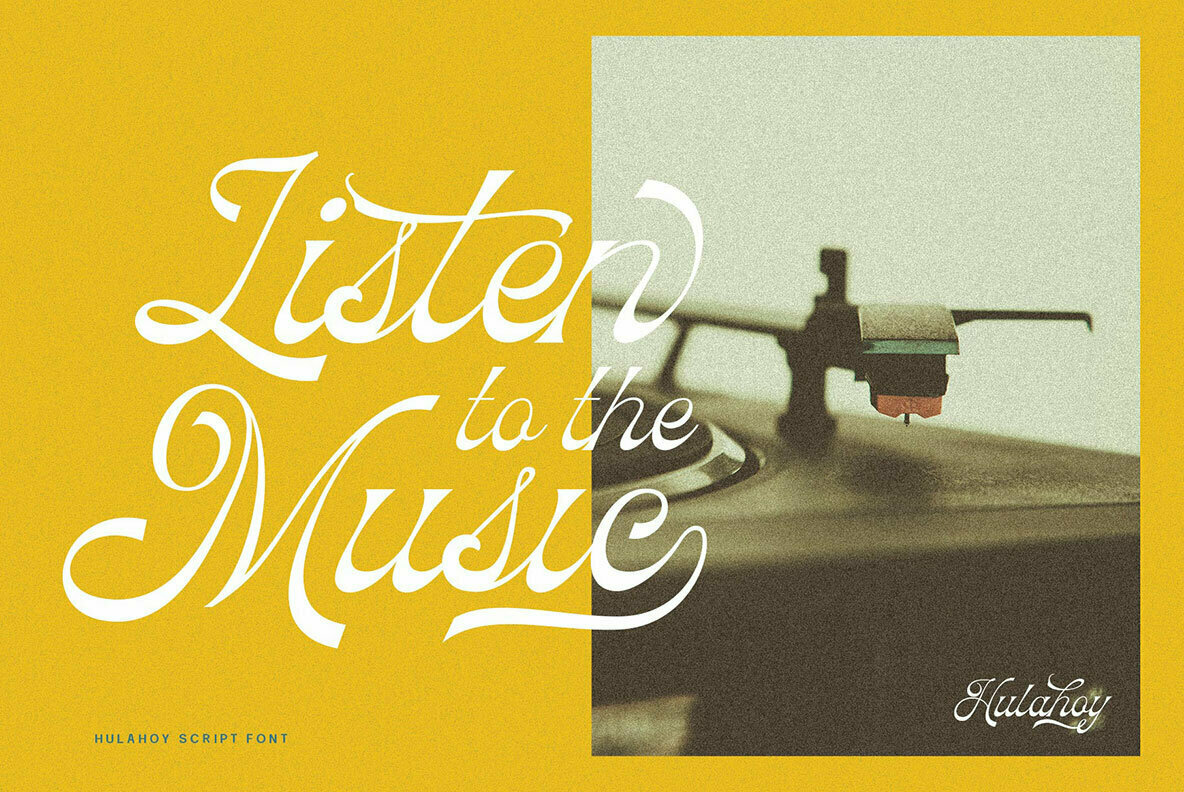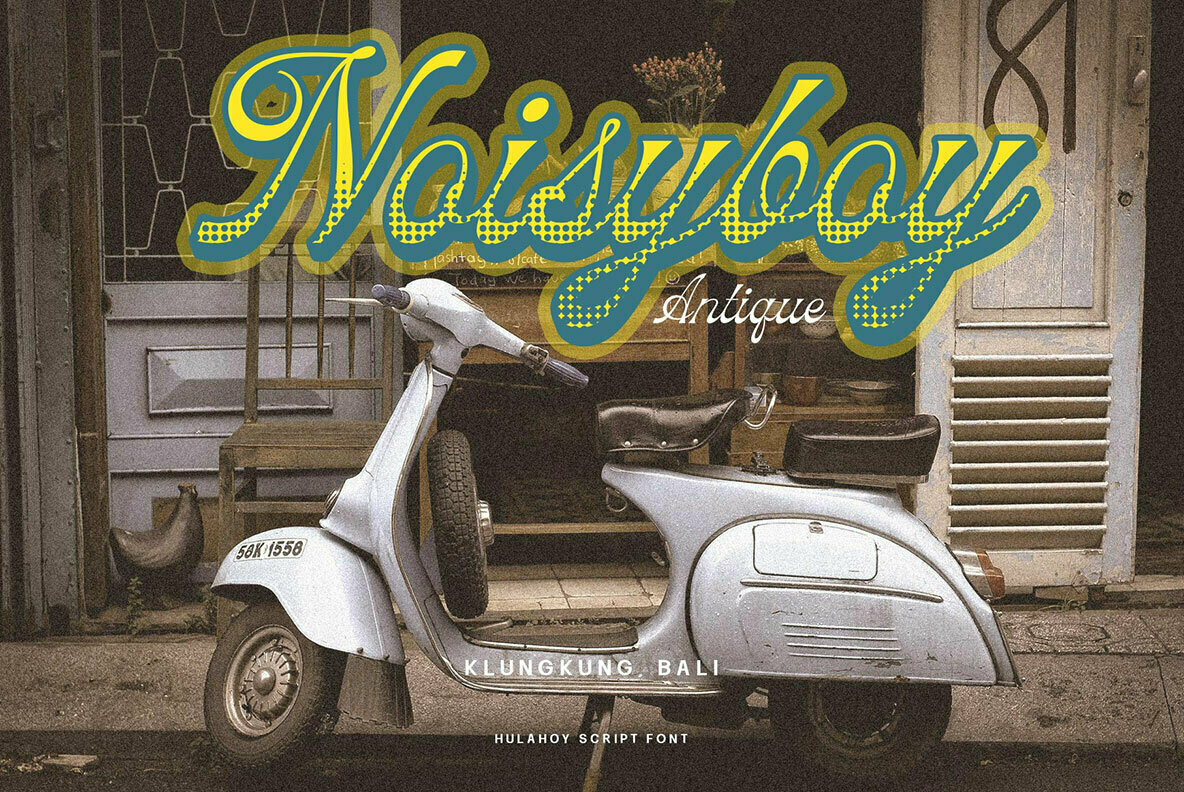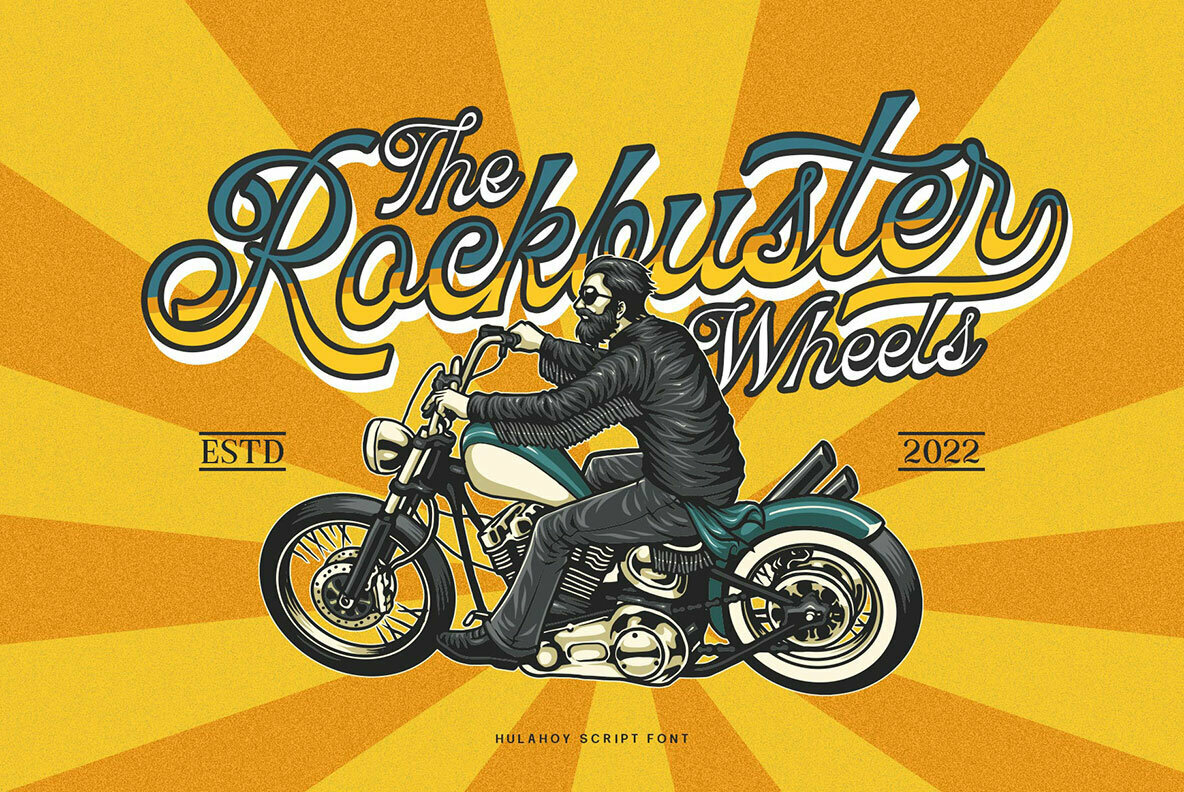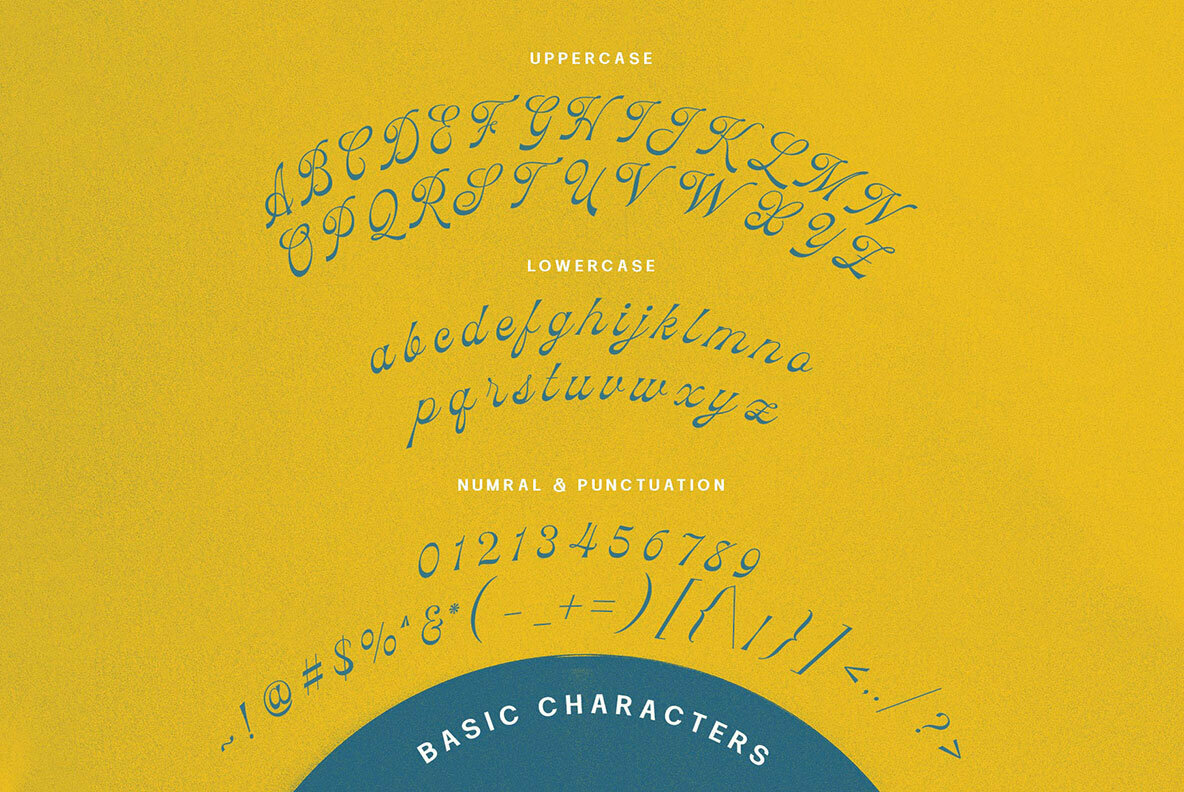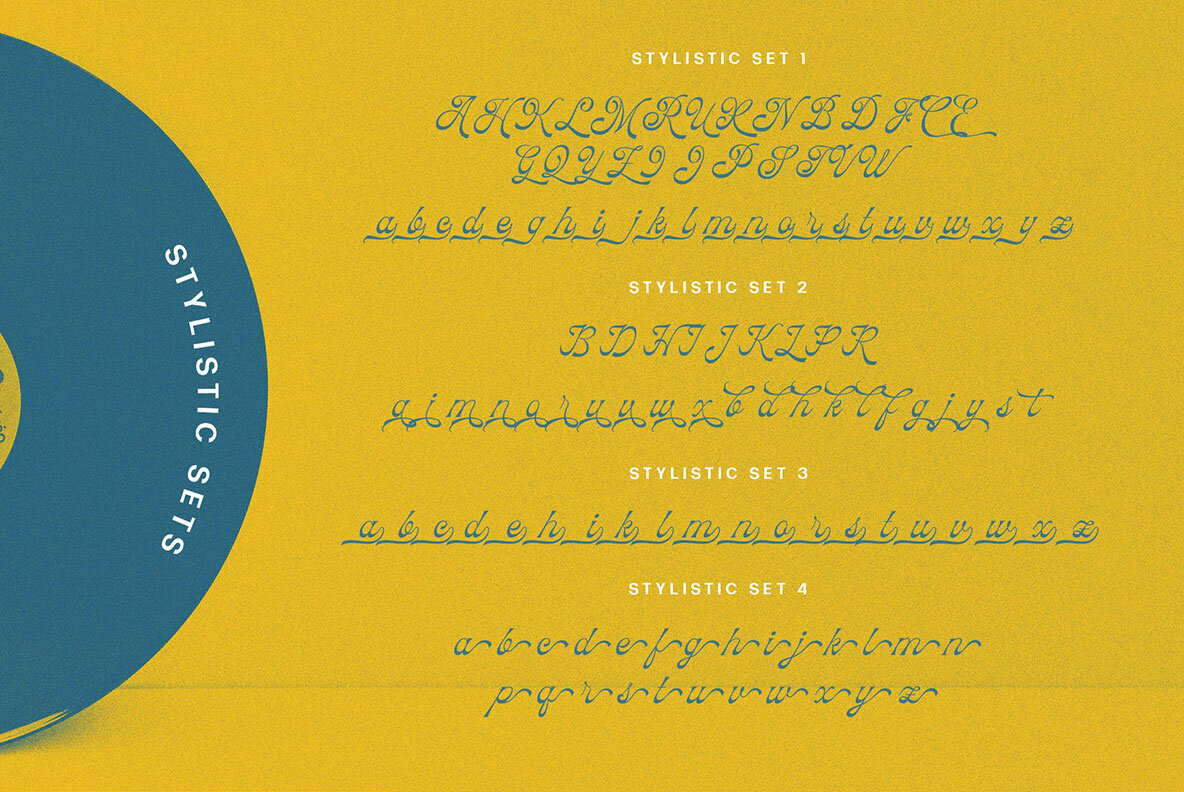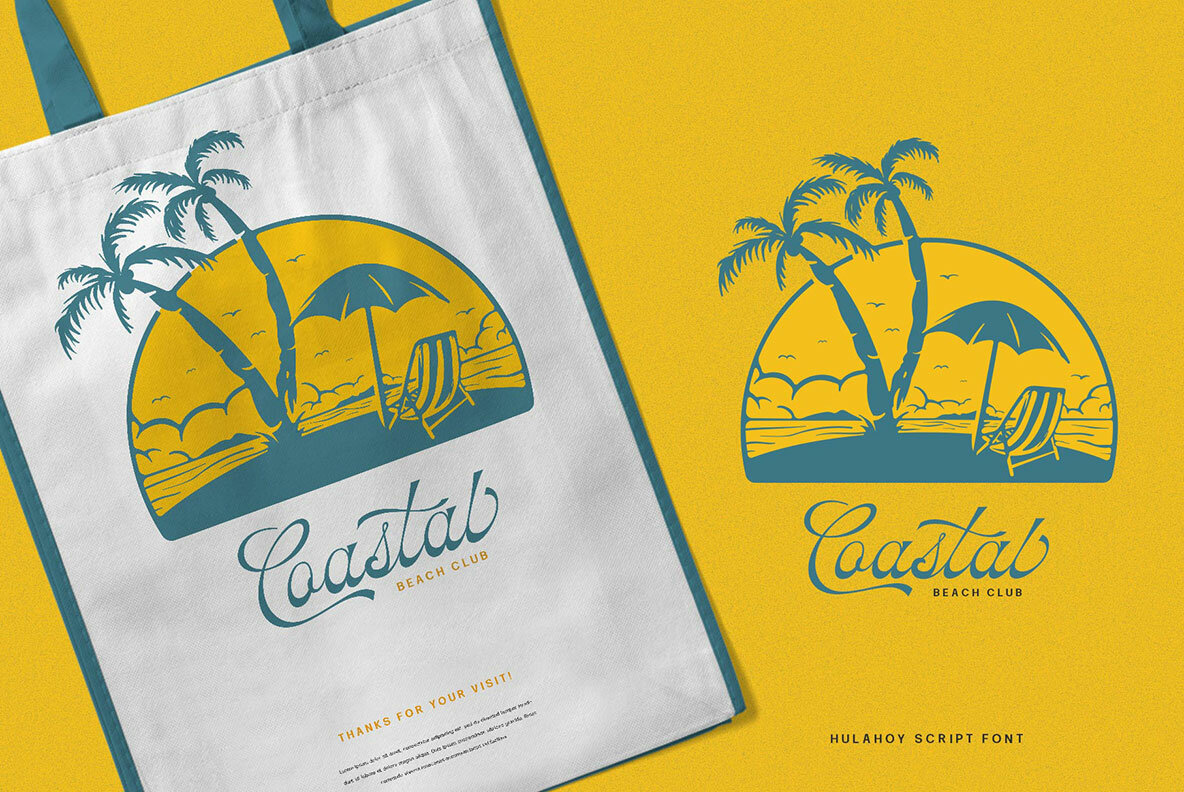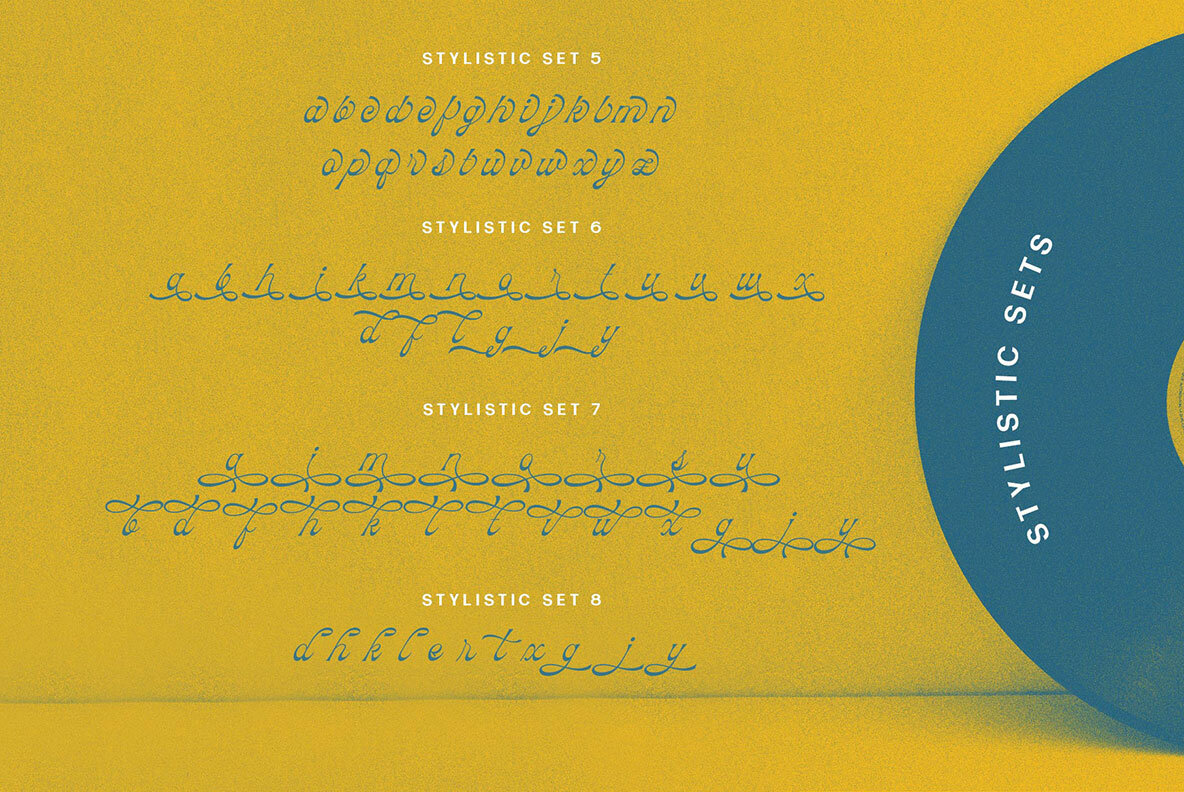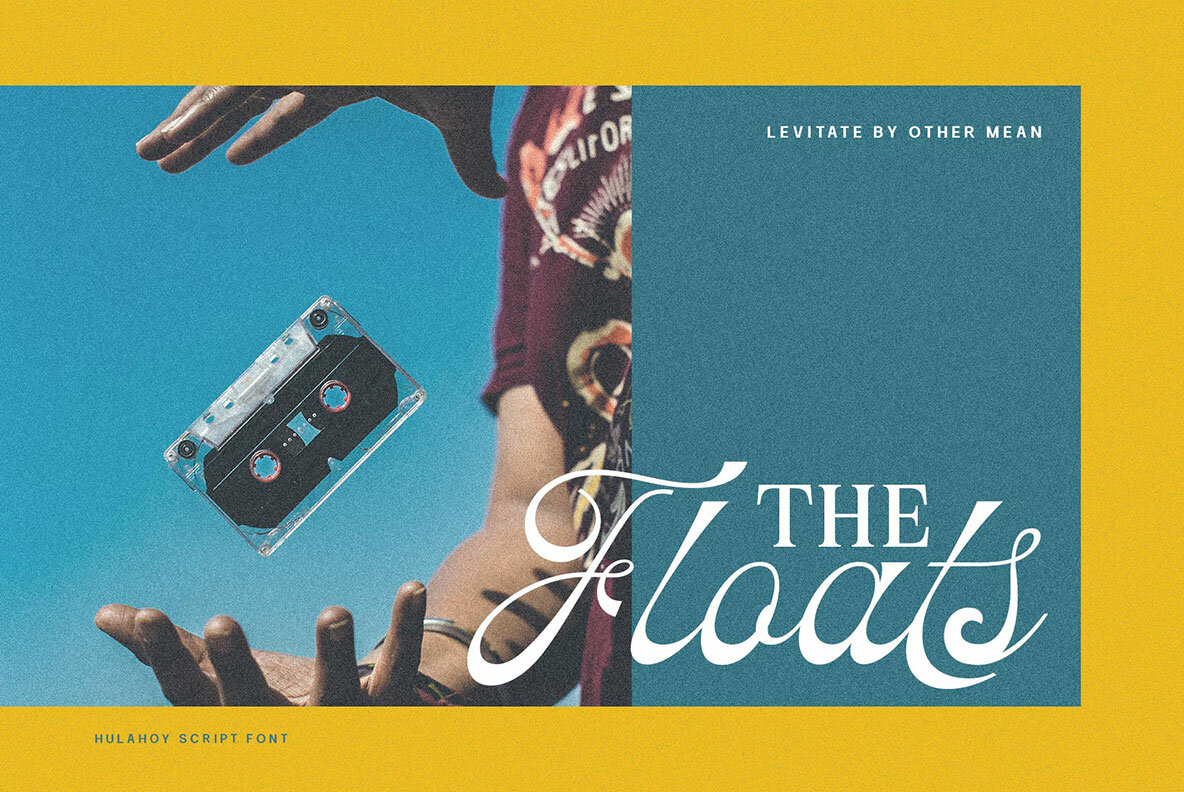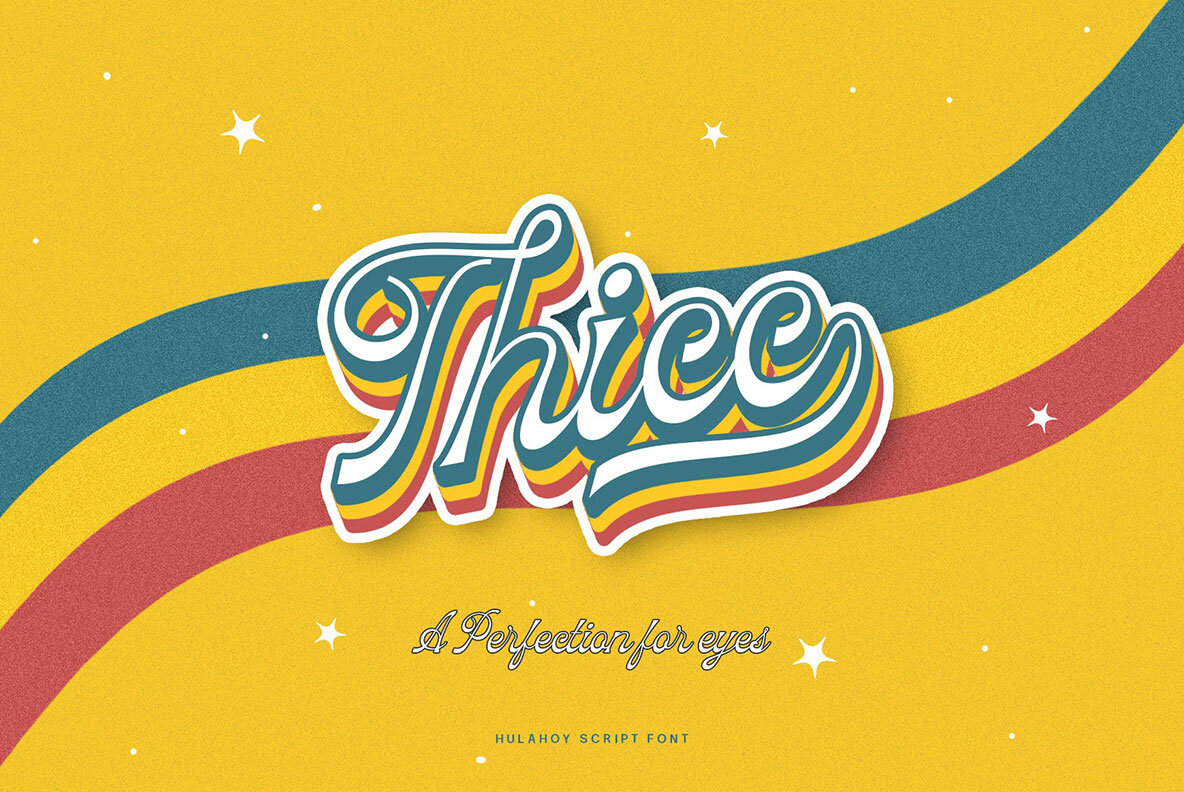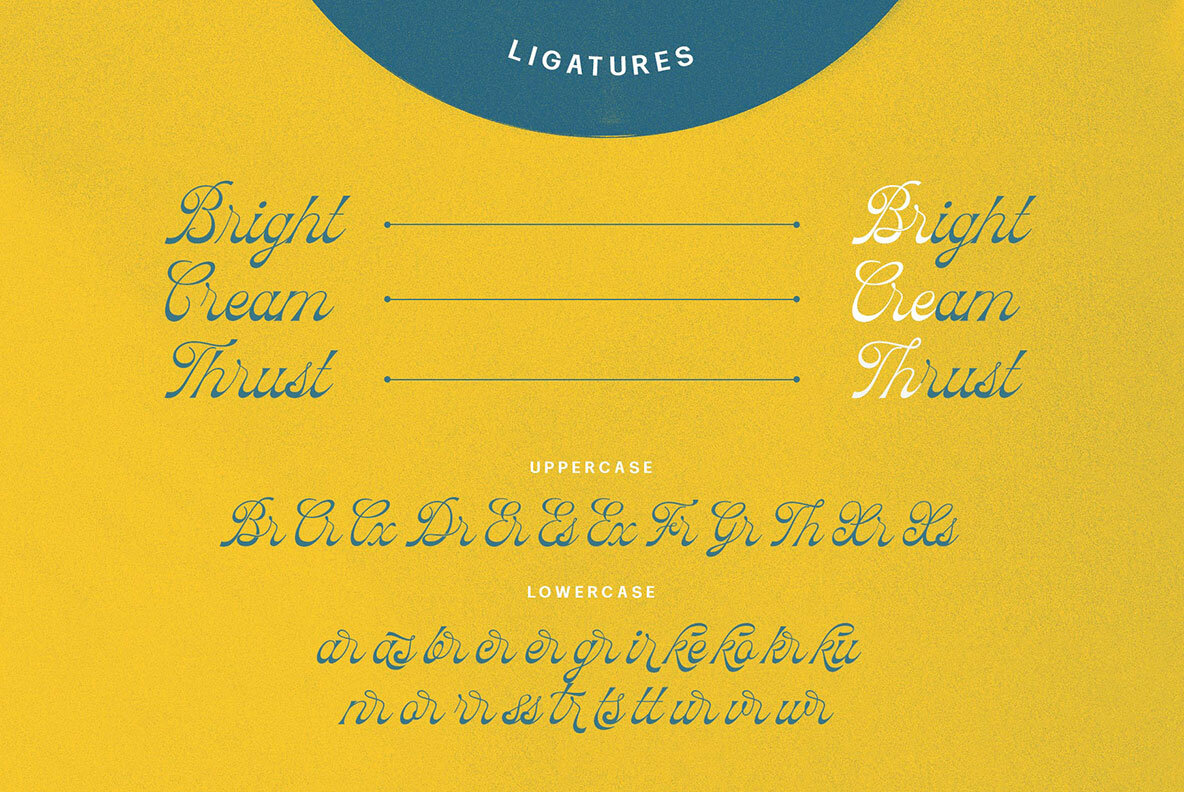
Hulahoy Font
Hulahoy Regular
Hulahoy is a distinctive typeface that channels the playful aesthetics of the 1970s. Embracing both humor and elegance, this font captures an era characterized by groove and nostalgia. Its classic yet whimsical style is easy to remember, making it a memorable choice for a variety of design applications. Including Hulahoy in your font collection not only enhances your creative projects but also anchors your designs with a unique yet approachable look.Hulahoy: A 70s-Inspired Groovy Typeface